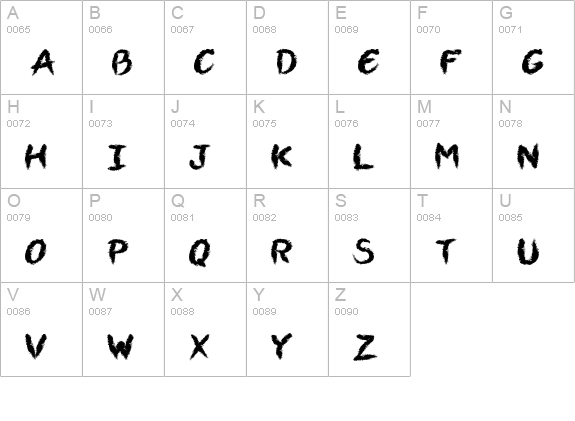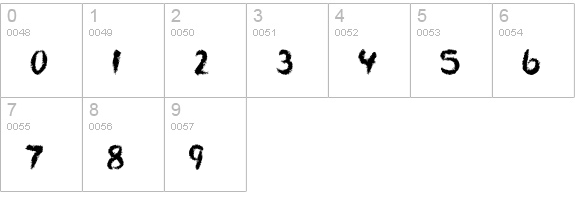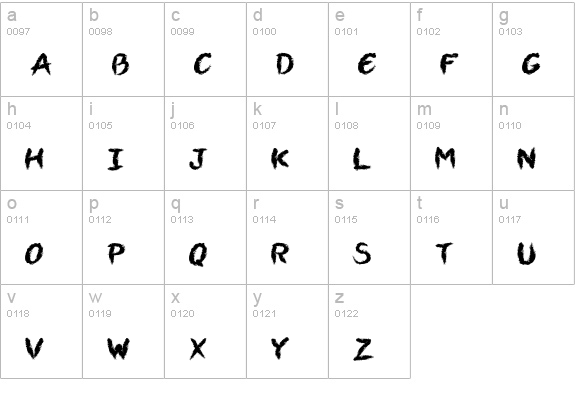
VTCAllSkratchedUpOne Font Details
VTCAllSkratchedUpOne font is a unique and edgy typeface that adds a touch of urban grit to any design project. This font features handwritten characters that appear as if they have been playfully scratched onto the page, creating a raw and rebellious aesthetic. With its bold strokes and uneven lines, VTCAllSkratchedUpOne font exudes an authentic street art feel, making it perfect for projects that require a dose of urban coolness. Whether you're designing a flyer for a hip-hop concert, creating a graffiti-inspired logo, or adding some attitude to a social media post, this font will make your text stand out from the crowd. The best part is, VTCAllSkratchedUpOne font is absolutely free to download at FontsMarket.com. This means that you can easily access this font without any cost or restrictions, making it a valuable asset for both professional designers and casual hobbyists alike. Don't miss out on this opportunity to add a touch of urban flair to your designs – download VTCAllSkratchedUpOne font today and let your creativity run wild.